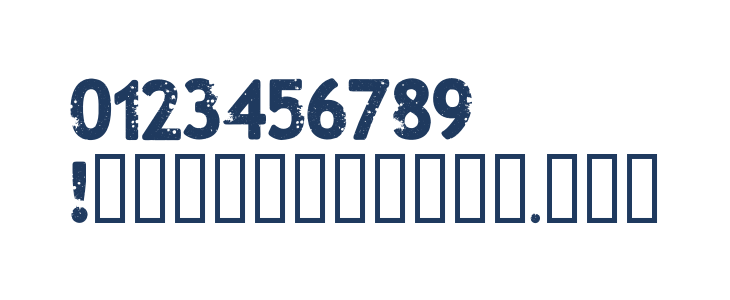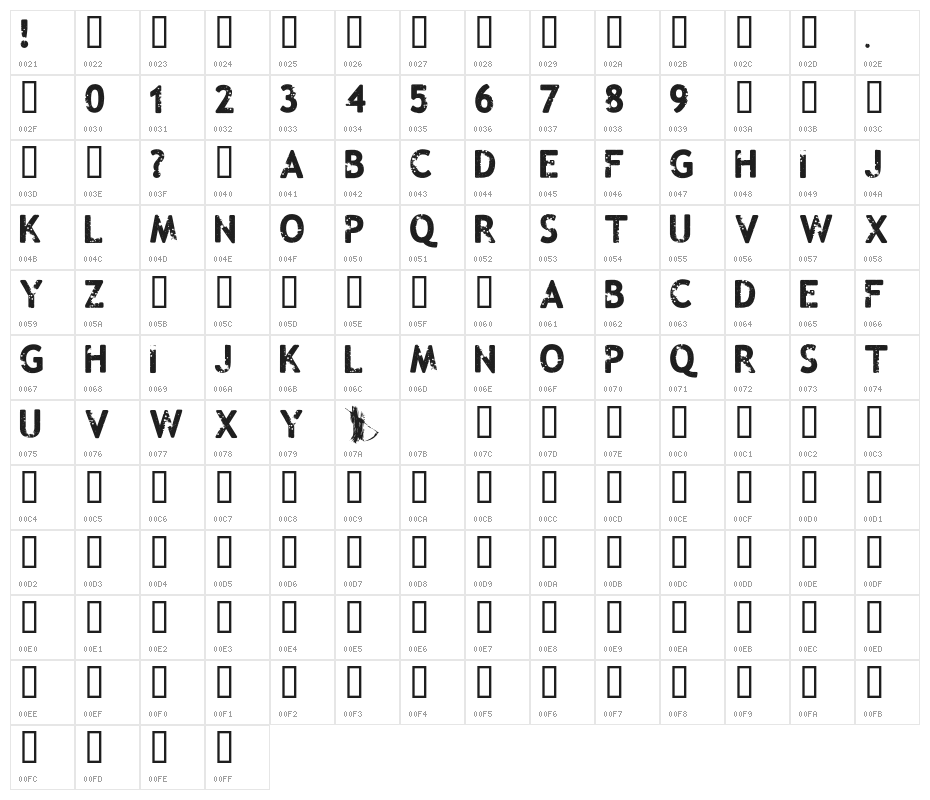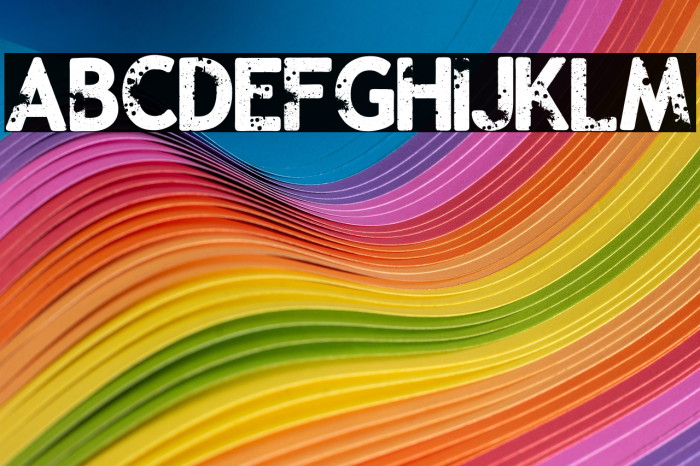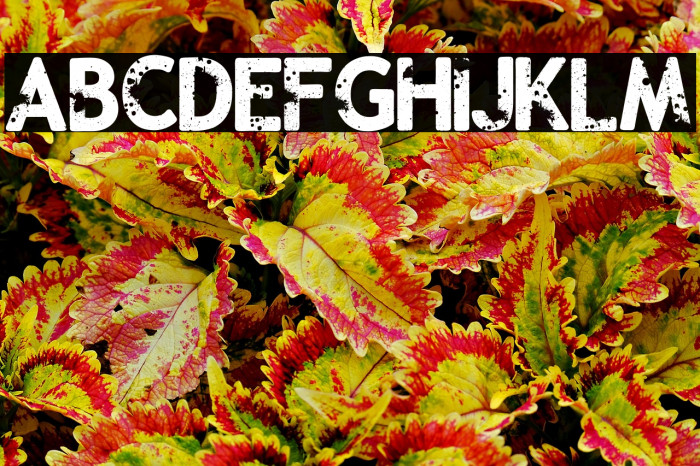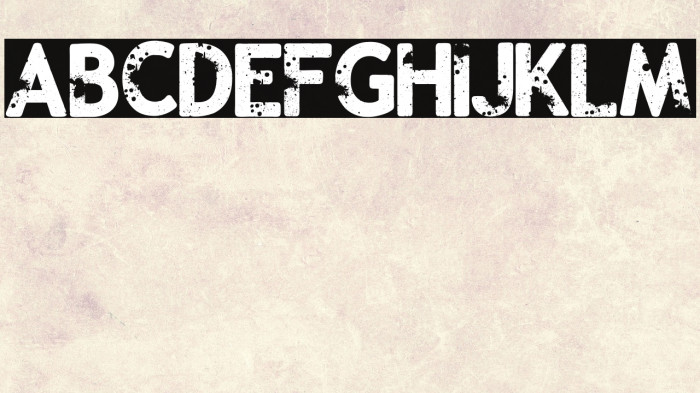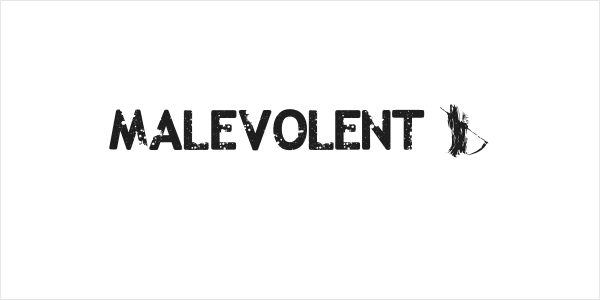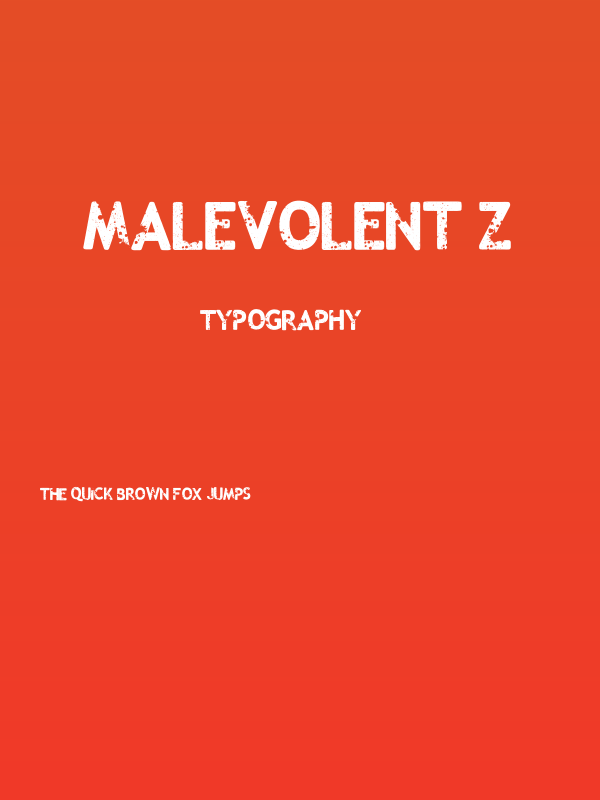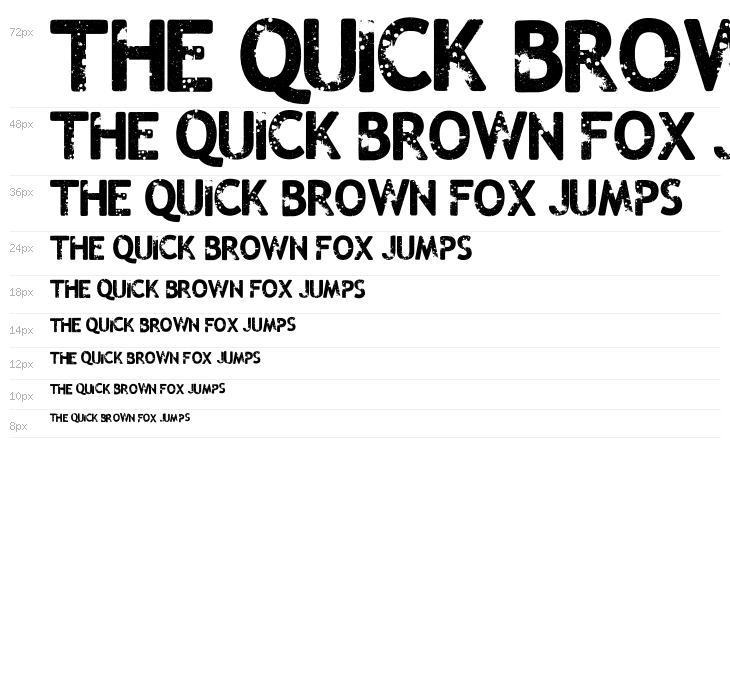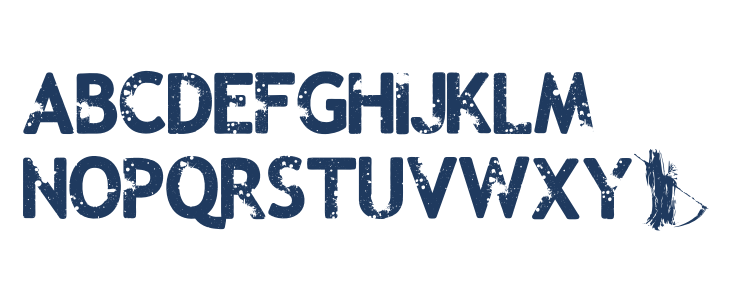
Malevolent z Font
Malevolent z Description
This font features a bold, distressed style with a grunge texture that gives it a rugged and worn appearance. The characters are uppercase and numerals, with a consistent thickness that adds to the boldness of the design. The rough edges and irregularities in the letters create a sense of movement and energy, making it ideal for projects that require a strong visual impact. The font's unique style is reminiscent of vintage or industrial themes, and it stands out with its bold presence. The texture adds depth and character, making it suitable for creative and artistic applications.
| Proposed Projects | Ideal for posters, album covers, branding, and any project needing a bold, vintage look. |